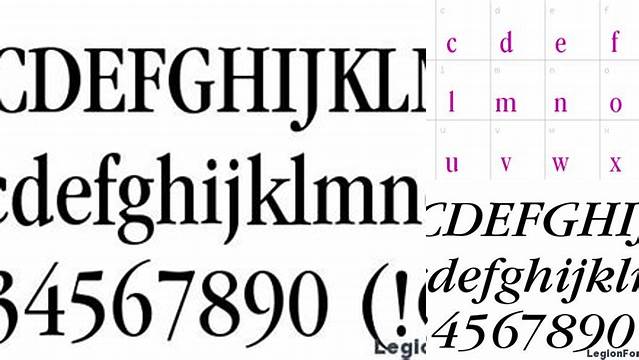
What is ITC Garamond Book?
Before diving into the details of ITC Garamond Book font free download, let's understand what makes this font so special. ITC Garamond is a revival of the classic Garamond typeface, originally designed by Claude Garamond in the 16th century. The International Typeface Corporation (ITC) released its version of Garamond in the 1970s, and it quickly gained popularity for its readability and elegant appearance. The 'Book' weight is particularly well-suited for body text, making it a versatile choice for a wide range of design projects.
ITC Garamond Book is known for its refined letterforms, balanced proportions, and excellent readability. It exudes a sense of sophistication and professionalism, making it ideal for use in books, magazines, corporate documents, and other high-end publications. Whether you're designing a book cover, crafting a website, or creating marketing materials, ITC Garamond Book can help you achieve a polished and professional look. Its versatility extends to both print and digital media, ensuring that your message is conveyed clearly and elegantly across all platforms. The subtle serifs and carefully crafted curves of ITC Garamond Book contribute to its timeless appeal, making it a reliable choice for designers seeking a classic yet contemporary typeface.
Key Characteristics of ITC Garamond Book
To appreciate the allure of ITC Garamond Book font free download, it's essential to understand its defining characteristics:
- Readability: ITC Garamond Book is renowned for its exceptional readability, making it a comfortable choice for extended reading. The carefully designed letterforms and balanced proportions contribute to a smooth and effortless reading experience.
- Elegance: This typeface exudes a sense of elegance and sophistication, making it suitable for high-end publications and design projects. Its refined appearance adds a touch of class to any design.
- Versatility: ITC Garamond Book is a versatile typeface that can be used in a wide range of applications, from books and magazines to websites and corporate documents. Its adaptability makes it a valuable asset in any designer's toolkit.
- Classic Appeal: As a revival of the classic Garamond typeface, ITC Garamond Book possesses a timeless quality that transcends fleeting trends. Its enduring appeal ensures that your designs will remain stylish and relevant for years to come.
- Balanced Proportions: The letterforms of ITC Garamond Book are meticulously crafted with balanced proportions, creating a harmonious and visually pleasing appearance. This attention to detail enhances the overall aesthetic appeal of the typeface.